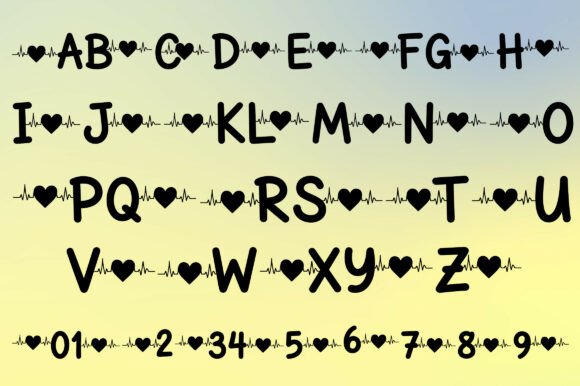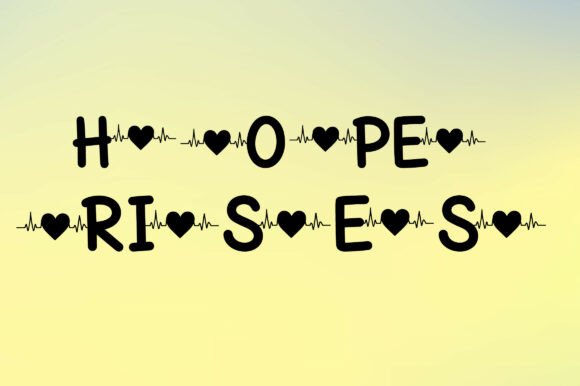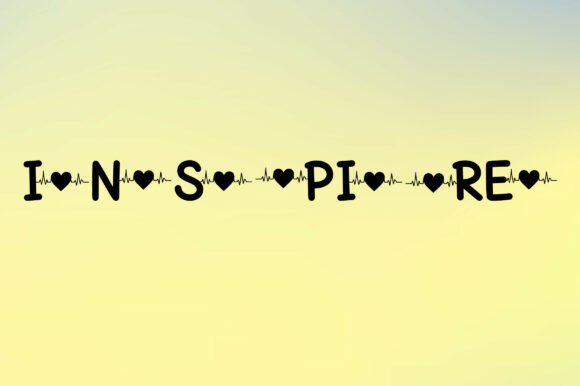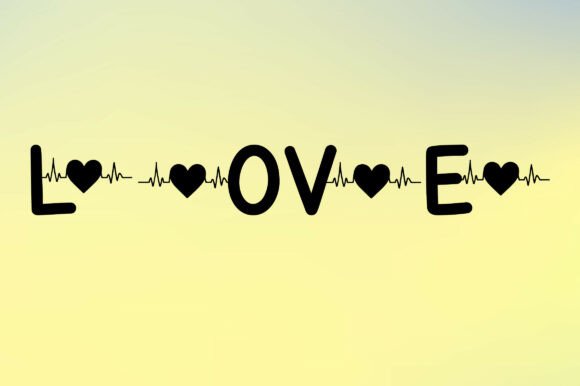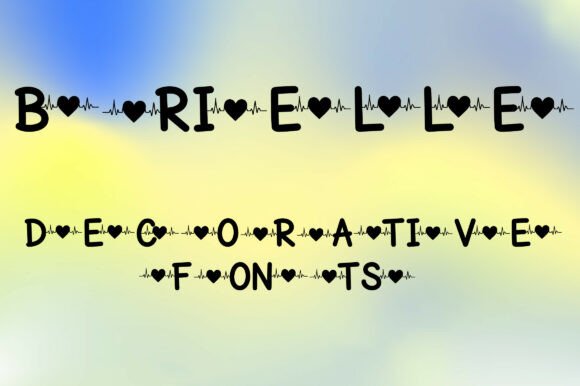
Brielle Font: The Ultimate Creative Expression for Designers and Crafters
In the world of graphic design, typography plays a vital role in conveying messages, expressing creativity, and building brand identities. When it comes to making a statement, a font can make all the difference. Introducing Brielle Font, a stunning decorative font that embodies the essence of creative expression. This eye-catching font is perfect for designers and crafters looking to add a touch of elegance, playfulness, and modernity to their projects.
A Stylish Typeface for Creative Projects
Brielle Font is a beautifully crafted, stylish typeface that exudes artistic flair. Its unique lettering and uppercase font style make it an ideal choice for display purposes, such as posters, packaging, invitations, and social media graphics. This modern font is designed to grab attention, convey personality, and leave a lasting impression on your audience.
Key Features of Brielle Font
- Decorative font: Brielle Font boasts an elegant, artistic design that adds a touch of sophistication to any project.
- Creative typography: Its unique lettering and uppercase font style make it perfect for creative typography and decorative lettering.
- Eye-catching font: The font’s stylish and modern design ensures it stands out in any design, making it perfect for display purposes.
- Playful font: Brielle Font’s artistic flair and elegant design make it suitable for projects that require a touch of playfulness.
- Modern font: This contemporary font is ideal for designers and crafters looking for a fresh, modern look.
- Unique lettering: Brielle Font’s distinctive lettering style sets it apart from other fonts, making it perfect for branding, logos, and visual identities.
Applications of Brielle Font
Brielle Font’s versatility makes it suitable for a wide range of applications, including:
- Branding font: Use Brielle Font to create a unique and memorable brand identity.
- Logo font: This font is perfect for designing logos that require a touch of elegance and sophistication.
- Poster font: Brielle Font’s eye-catching design makes it ideal for posters, flyers, and brochures.
- Packaging font: Add a touch of creativity and elegance to your packaging designs with Brielle Font.
- Invitation font: Use this font to create beautiful, stylish invitations for special occasions.
- Social media font: Brielle Font is perfect for creating engaging social media graphics that stand out.
Why Choose Brielle Font?
Brielle Font offers a unique combination of style, creativity, and versatility, making it an excellent choice for designers and crafters. Here are some reasons why you should choose Brielle Font:
- Handcrafted font: Brielle Font is a carefully crafted, high-quality font that ensures a professional finish.
- Contemporary font: This modern font is designed to meet the demands of contemporary design.
- Chic typography: Brielle Font’s elegant design and stylish lettering make it perfect for creating chic, sophisticated designs.
- Expressive font: This font allows you to express your creativity and add a personal touch to your designs.
- Custom font: Brielle Font can be customized to suit your specific design needs.
Brielle Font is an exceptional decorative font that offers a world of creative possibilities for designers and crafters. Its unique lettering, stylish design, and versatility make it perfect for a wide range of applications. Whether you’re looking to create a stunning brand identity, design eye-catching posters, or craft beautiful invitations, Brielle Font is the ultimate choice. With its elegant design, modern style, and artistic flair, Brielle Font is sure to elevate your designs and leave a lasting impression on your audience.